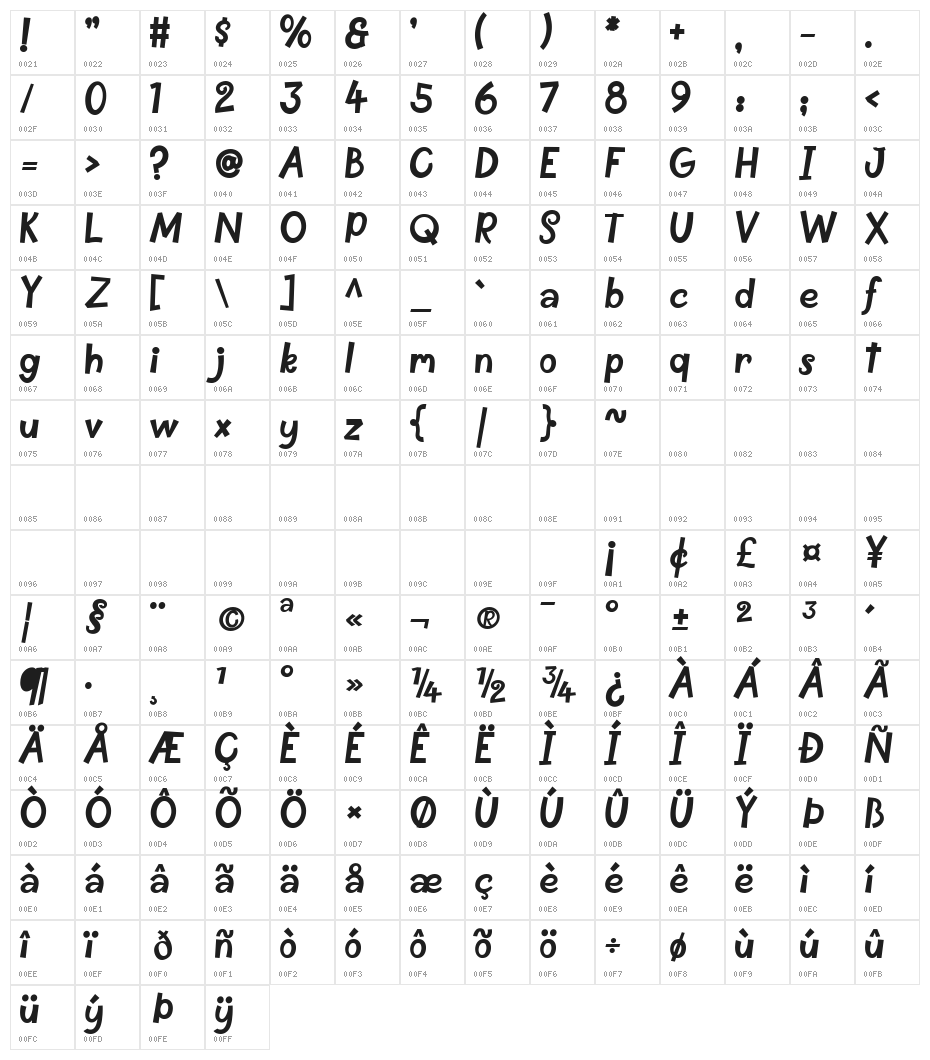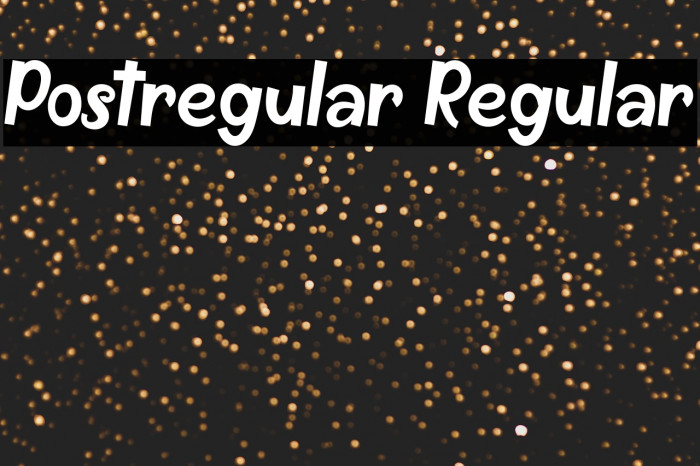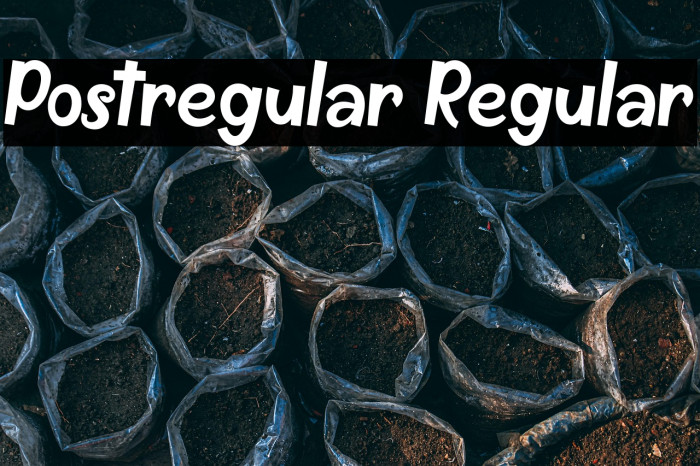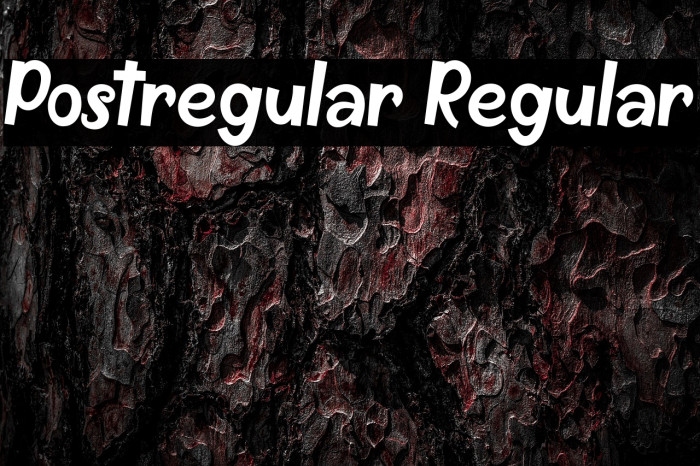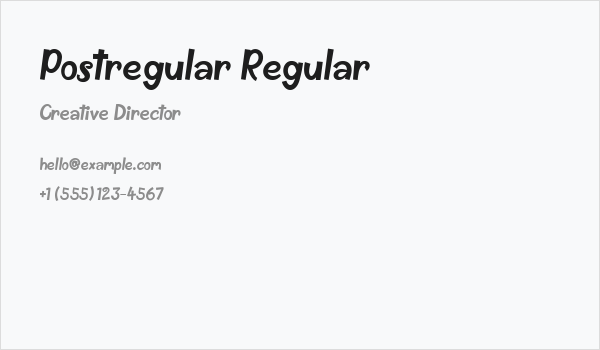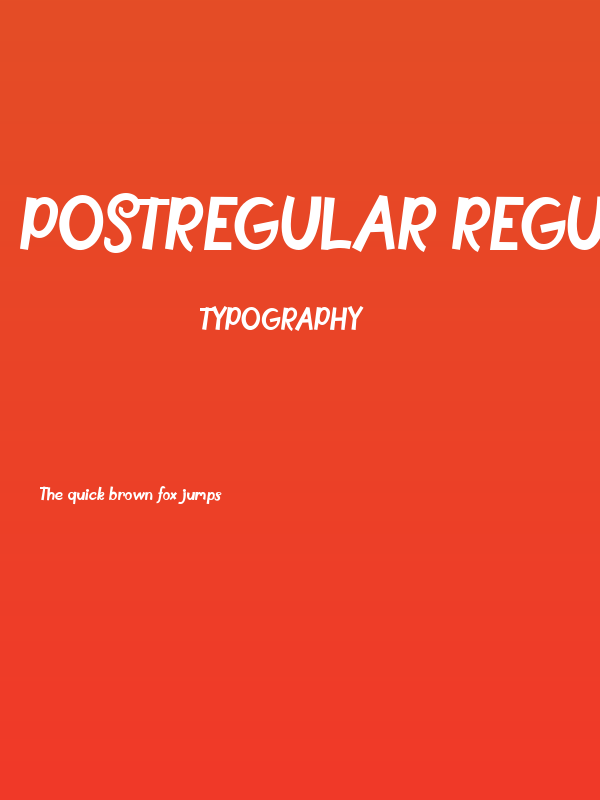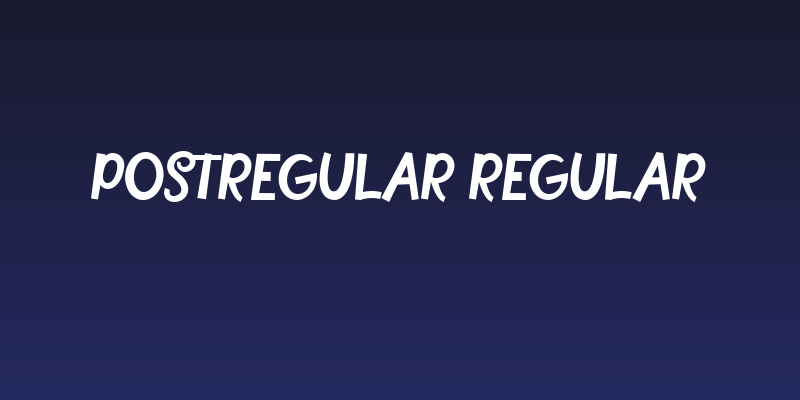
Postregular Regular Font
Postregular Regular Description
This font features a playful and dynamic style with a slight slant, giving it an energetic and informal appearance. The characters are bold and slightly condensed, with a consistent stroke width that provides a uniform look across all letters and numbers. The uppercase letters have a distinct, angular design, while the lowercase letters maintain a rounded and approachable feel. The numerals are bold and easily readable, making them suitable for various applications. Special characters are creatively designed, adding to the font's overall playful aesthetic. This font is ideal for projects that require a fun and engaging visual impact.
| Use Case | Headlines, Posters, Branding |
| Proposed Projects | Great for children's books, posters, comic strips, and playful branding materials. |